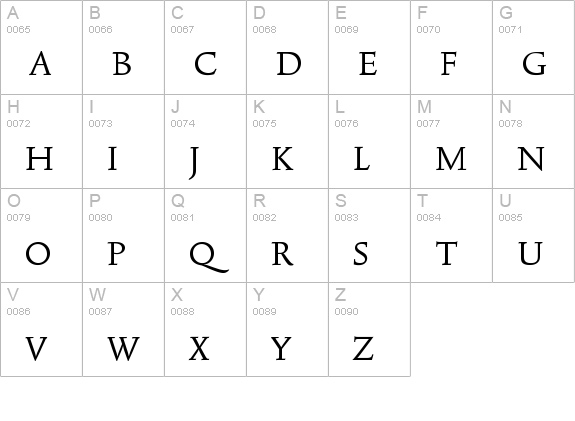
TriniteNo3-RomanWide is a visually stunning and versatile font that effortlessly combines classic elegance with a modern twist. Its carefully crafted letterforms exude confidence and sophistication, making it the perfect choice for any design project that demands attention and refinement. With its wide set proportions and clean lines, TriniteNo3-RomanWide commands attention and creates a strong visual impact. Whether it's used for headlines, logos, branding, or editorial layouts, this font captivates with its timeless appeal and striking presence. One of the most remarkable aspects of TriniteNo3-RomanWide is that it is free. Yes, you read that right! This extraordinary font is freely available to download at FontsMarket.com, making it accessible to designers, creatives, and enthusiasts alike. Now, you can elevate your designs without breaking the bank or compromising on quality. TriniteNo3-RomanWide boasts an extensive character set, including uppercase and lowercase letters, numerals, punctuation marks, and special symbols. It supports multiple languages, enabling you to communicate your message effectively across various cultures and audiences. The impeccable spacing and kerning of TriniteNo3-RomanWide ensure legibility and readability, even at smaller sizes. Its well-defined curves and sharp angles add a sense of precision, while the generous x-height enhances clarity and readability. Whether you're working on a print project, a website design, or even a mobile application, TriniteNo3-RomanWide adapts seamlessly to any medium. Its versatility allows it to be used for both formal and informal contexts, adding a touch of elegance and sophistication to any design endeavor. Downloading TriniteNo3-RomanWide from FontsMarket.com is a breeze. Simply visit the website, locate the font, and with just a few clicks, it will be yours to explore and utilize in your creative endeavors. Discover the power of TriniteNo3-RomanWide and unleash your creativity with a font that is not only visually stunning but also free!